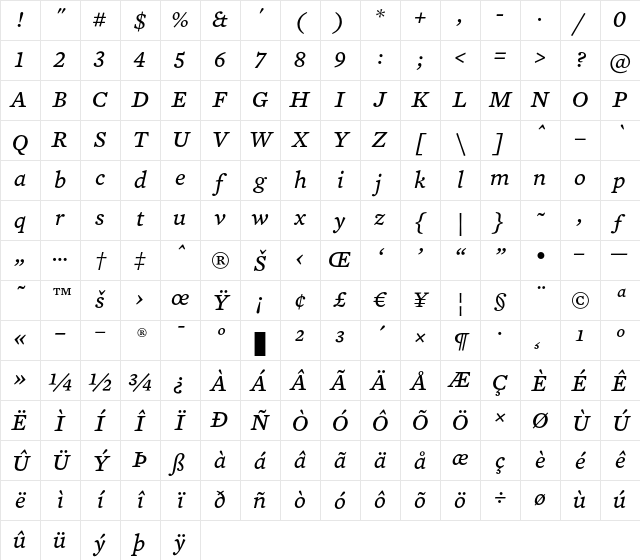
Mercury Text G4 Italic
Design Context for Mercury Text G4
Mercury Text G4 is a composed and adaptable typeface that performs quietly and consistently across a wide range of design contexts. The slanted form adds forward momentum and visual energy.
Pro Tip: Use Mercury Text G4 for emphasis, pull quotes, and subheadings where its slanted energy can add rhythm to the layout.